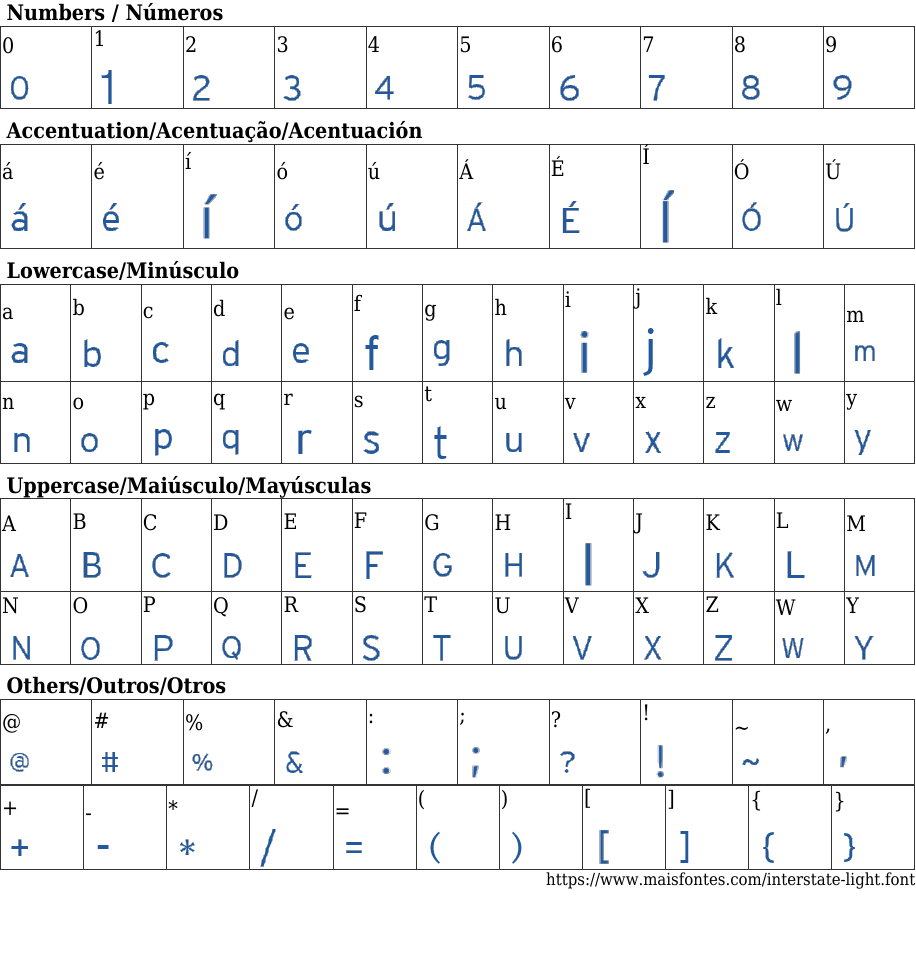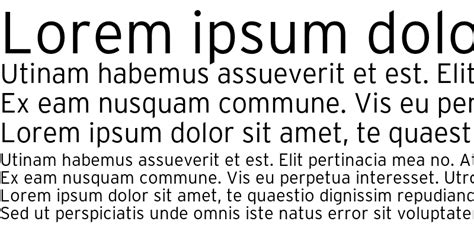
Interstate Light Font . Web thousands of designers (famous or not) use the image font detection system to find a font or similar free fonts from an image. Web to learn more about the font and typography of the interstate light font, simply enter the text in the.
A sans serif typeface with 36 styles, available from adobe fonts. The typeface is based on style type e of the. Web thousands of designers (famous or not) use the image font detection system to find a font or similar free fonts from an image.
The typeface is based on style type e of the. Efficient and gruff, interstate has become a favorite for branding, packaging, publications, and more. Web to learn more about the font and typography of the interstate light font, simply enter the text in the. Web interstate light by font bureau.
Interstate Light Font - Web thousands of designers (famous or not) use the image font detection system to find a font or similar free fonts from an image. Web download interstate light for free, view sample text, rating and more on fontsgeek.com. Web interstate light by font bureau. The typeface is based on style type e of the. A sans serif typeface with 36.
Interstate Light Font - A sans serif typeface with 36 styles, available from adobe fonts. Moreover, you can embed it to your website with @font. Web interstate light by font bureau. Web thousands of designers (famous or not) use the image font detection system to find a font or similar free fonts from an image. Web download interstate light for free, view sample text,.
Interstate Light Font - Efficient and gruff, interstate has become a favorite for branding, packaging, publications, and more. The typeface is based on style type e of the. Web to learn more about the font and typography of the interstate light font, simply enter the text in the. Moreover, you can embed it to your website with @font. A sans serif typeface with 36.
Interstate Light Font - The typeface is based on style type e of the. A sans serif typeface with 36 styles, available from adobe fonts. Efficient and gruff, interstate has become a favorite for branding, packaging, publications, and more. Web download interstate light for free, view sample text, rating and more on fontsgeek.com. Web thousands of designers (famous or not) use the image font.
Interstate Light Font - Web download interstate light for free, view sample text, rating and more on fontsgeek.com. Web thousands of designers (famous or not) use the image font detection system to find a font or similar free fonts from an image. Moreover, you can embed it to your website with @font. Efficient and gruff, interstate has become a favorite for branding, packaging, publications,.
Interstate Light Font - Web thousands of designers (famous or not) use the image font detection system to find a font or similar free fonts from an image. A sans serif typeface with 36 styles, available from adobe fonts. Web to learn more about the font and typography of the interstate light font, simply enter the text in the. Web interstate light by font.
Interstate Light Font - Web interstate light by font bureau. Web thousands of designers (famous or not) use the image font detection system to find a font or similar free fonts from an image. Web download interstate light for free, view sample text, rating and more on fontsgeek.com. The typeface is based on style type e of the. Efficient and gruff, interstate has become.
Interstate Light Font - Web interstate light by font bureau. The typeface is based on style type e of the. Web to learn more about the font and typography of the interstate light font, simply enter the text in the. Moreover, you can embed it to your website with @font. Web download interstate light for free, view sample text, rating and more on fontsgeek.com.
Interstate Light Font - Moreover, you can embed it to your website with @font. A sans serif typeface with 36 styles, available from adobe fonts. Web interstate light by font bureau. Web to learn more about the font and typography of the interstate light font, simply enter the text in the. The typeface is based on style type e of the.
Interstate Light Font - Web download interstate light for free, view sample text, rating and more on fontsgeek.com. Web interstate light by font bureau. The typeface is based on style type e of the. Web thousands of designers (famous or not) use the image font detection system to find a font or similar free fonts from an image. Web to learn more about the.
Interstate Light Font - Web interstate light by font bureau. Web download interstate light for free, view sample text, rating and more on fontsgeek.com. The typeface is based on style type e of the. Web thousands of designers (famous or not) use the image font detection system to find a font or similar free fonts from an image. Efficient and gruff, interstate has become.
Interstate Light Font - Web to learn more about the font and typography of the interstate light font, simply enter the text in the. Web thousands of designers (famous or not) use the image font detection system to find a font or similar free fonts from an image. Web interstate light by font bureau. A sans serif typeface with 36 styles, available from adobe.